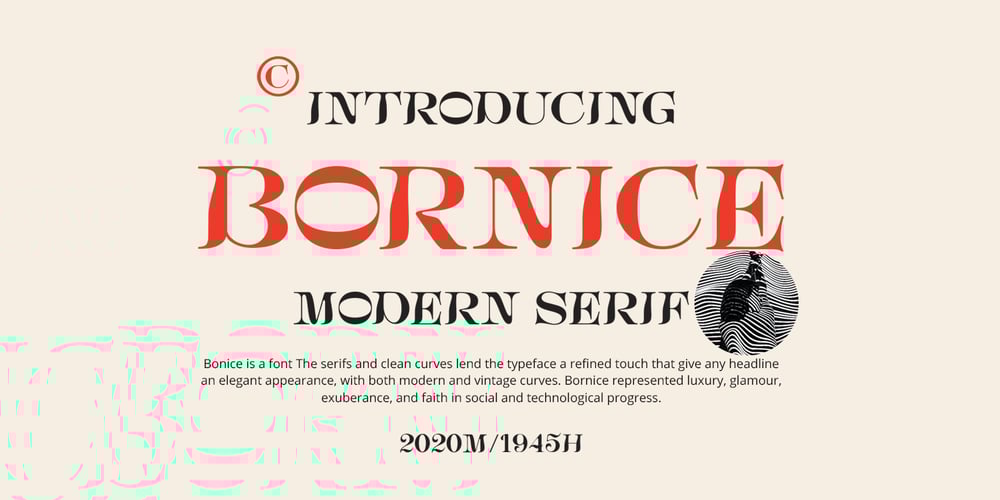
Bornice Font Family was designed by Tanzil Adduha and published by Tanziladd. Bornice contains 1 styles and family package options. Bornice is a modern serif, typeface a refined touch that give any headline an elegant appearance, with both modern and vintage curves. Bornice represented luxury, glamour, exuberance, and faith in social and technological progress and support multilingual.